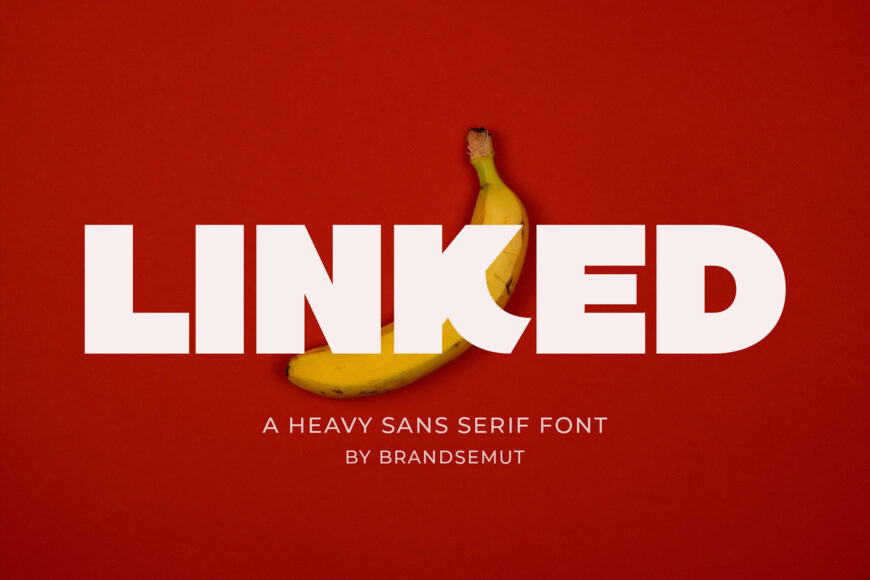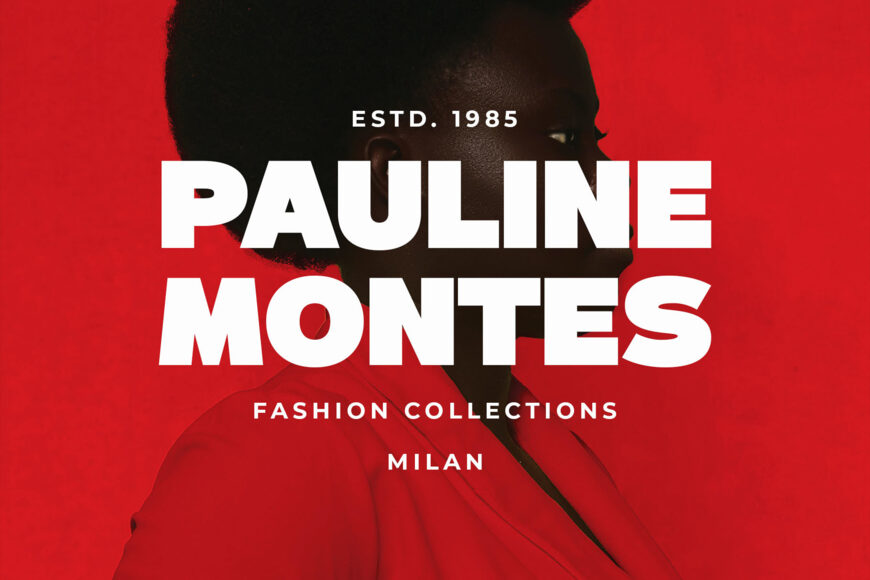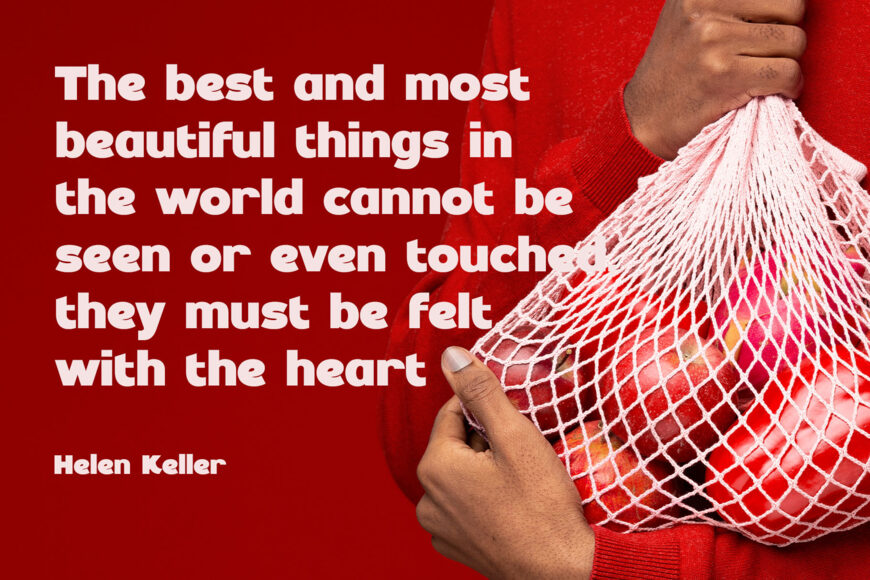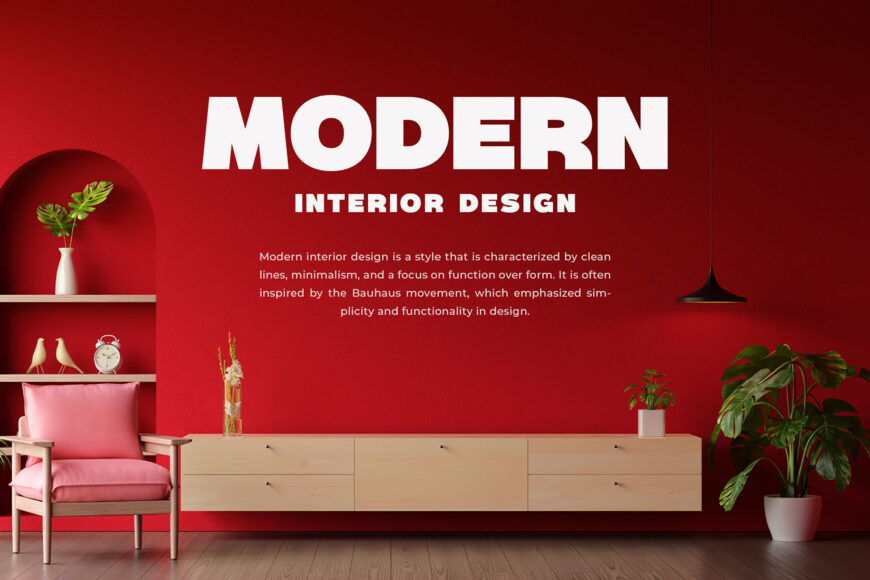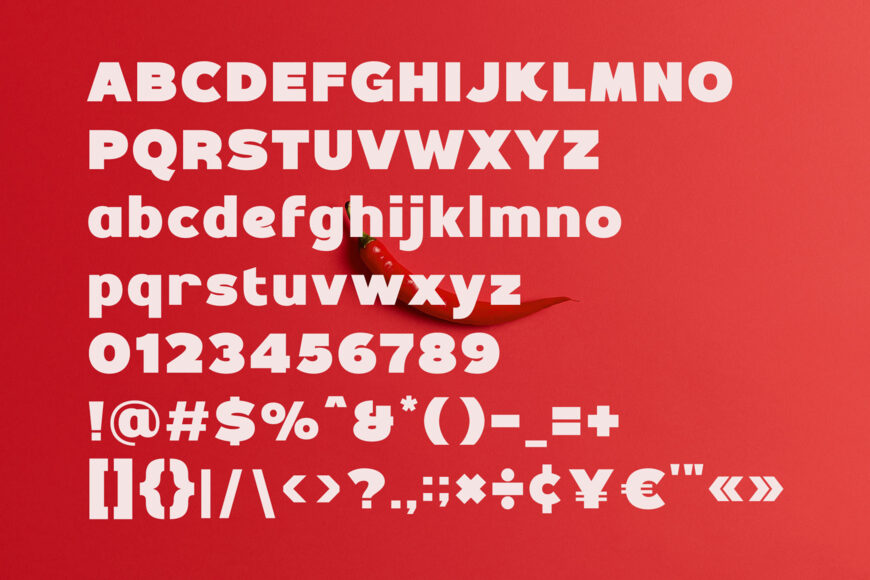
Linked Font
Meet Linked, a bold sans-serif font from Brand Semut. Ideal for display purposes, Linked is perfect for headings, logos, and branding. Its clean lines and geometric precision bring a modern touch to any project, making it great for headlines and posters.
Designed by: Brand Semut (BrandSemut)